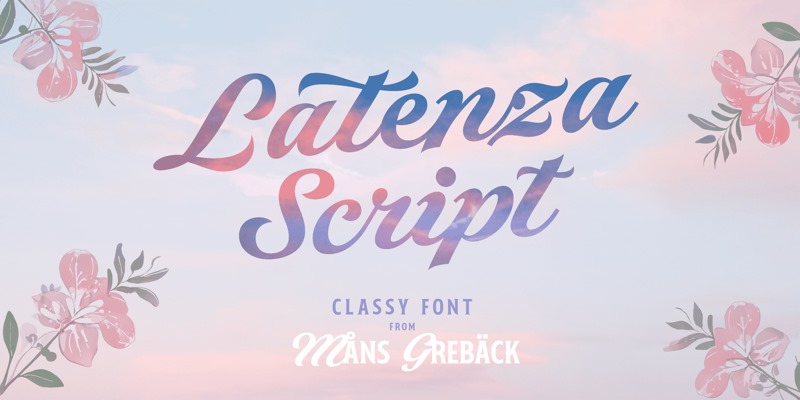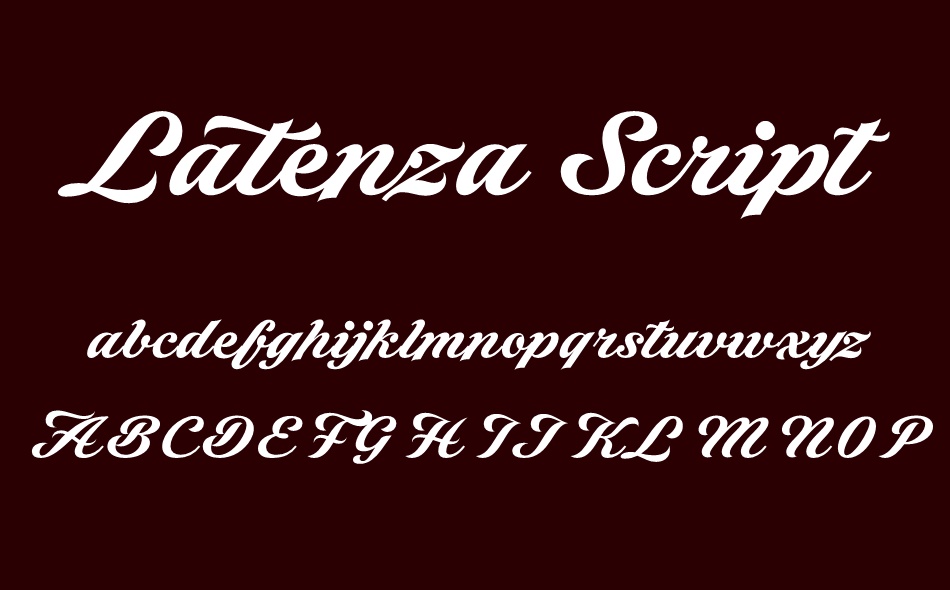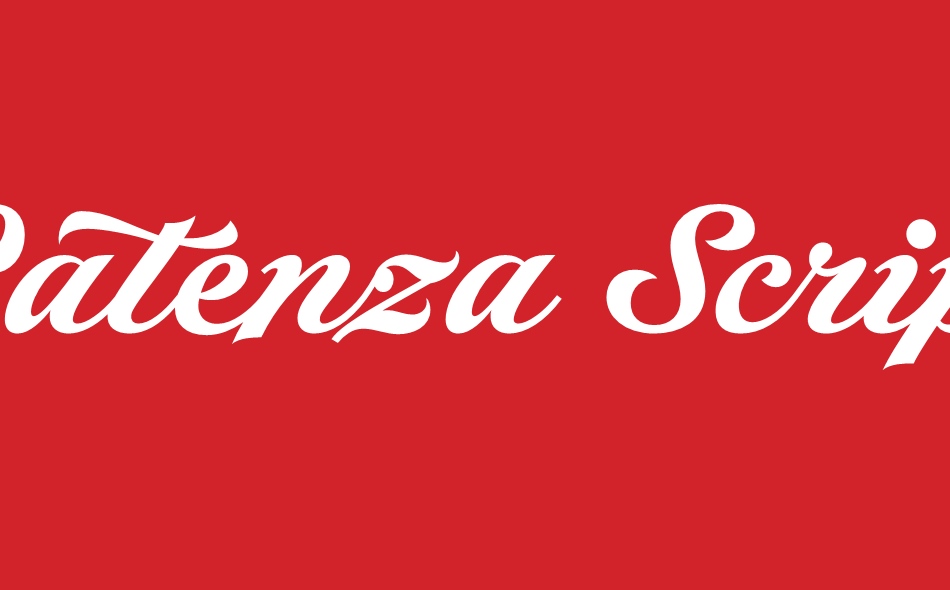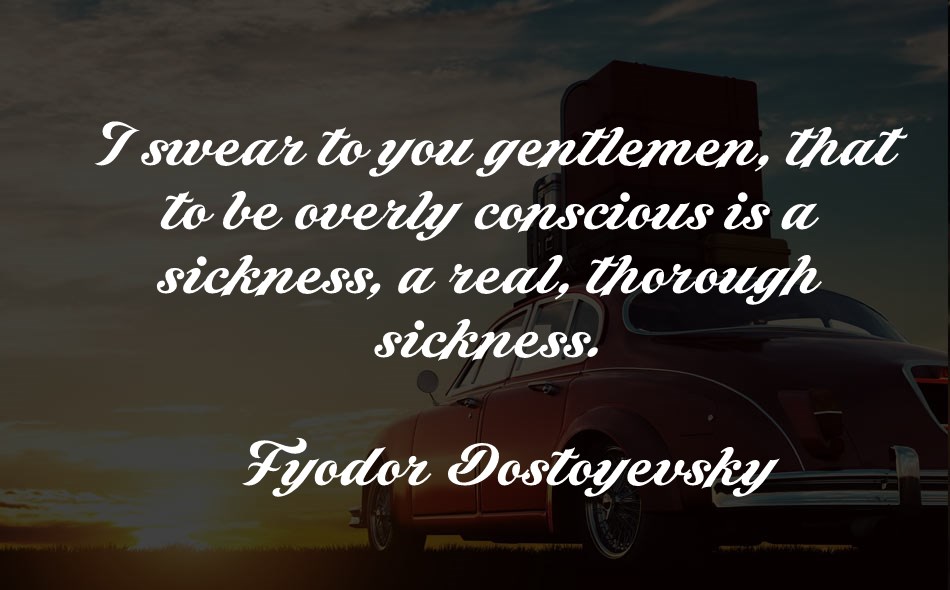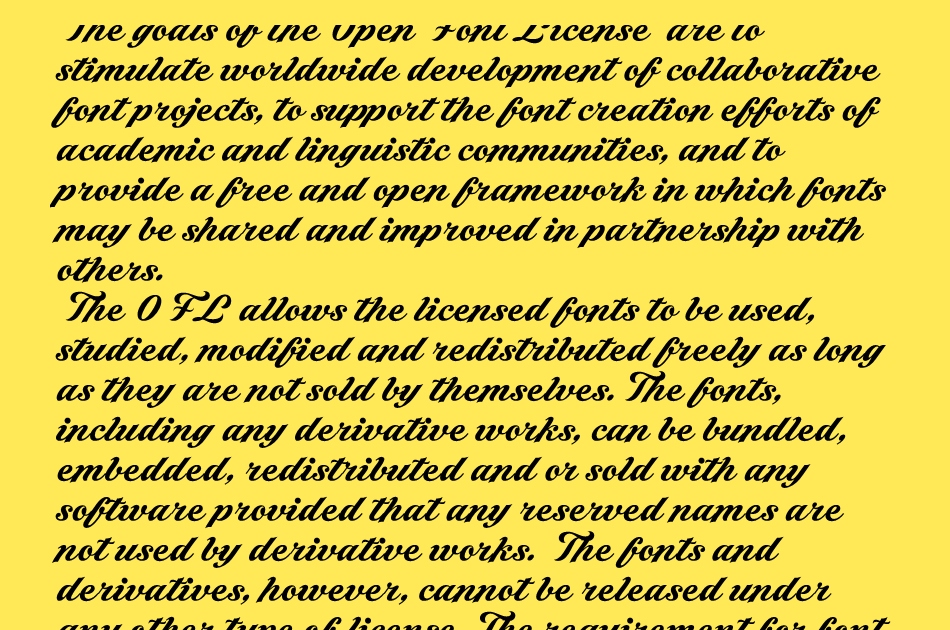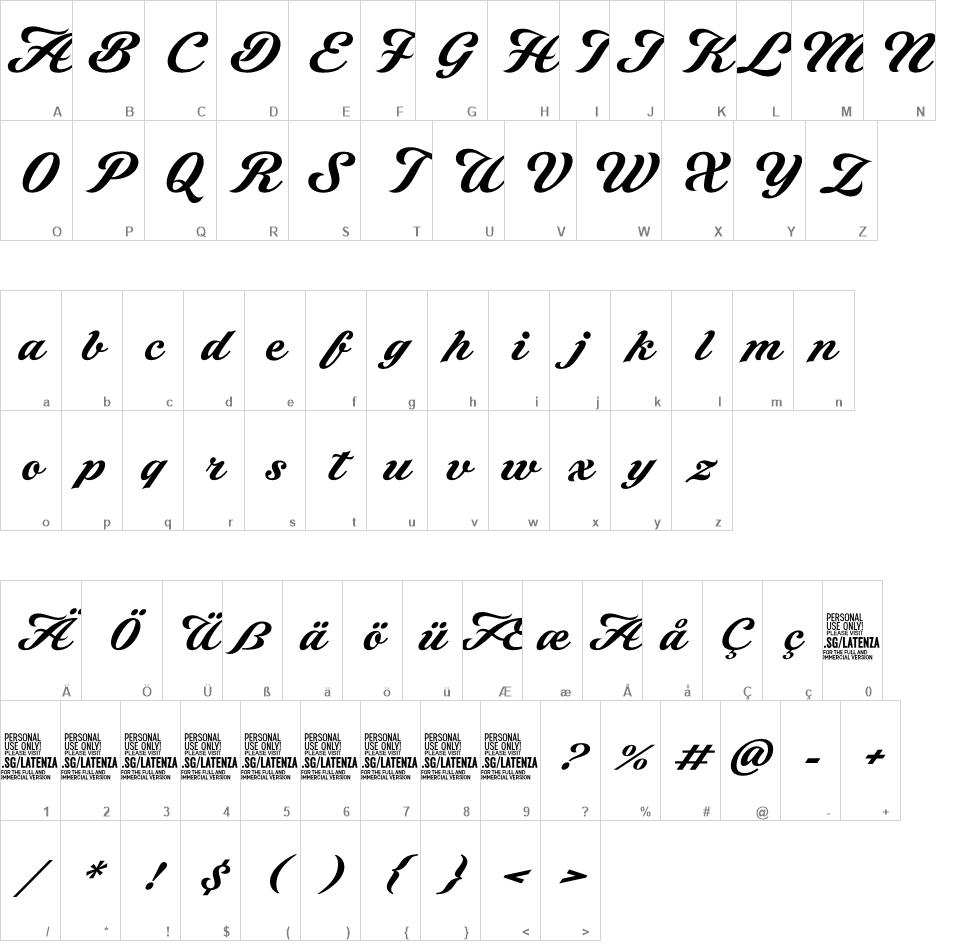
Latenza Script font
Latenza Script is a flowing calligraphic script with a soft, composed rhythm. The letters move with long strokes and gentle turns, giving the text a calm confidence rather than a loud flourish. It carries a classic feeling, but with relaxed proportions that make it feel natural and contemporary.
Latenza Script is a flowing calligraphic script with a soft, composed rhythm.
The letters move with long strokes and gentle turns, giving the text a calm confidence rather than a loud flourish. It carries a classic feeling, but with relaxed proportions that make it feel natural and contemporary. The connections are smooth and intentional, allowing words to breathe while still holding together as a unified line.
The font is built with advanced OpenType functionality and guaranteed top-notch quality, containing stylistic and contextual alternates, ligatures and more automatic and manual features; all to give you full control and customizability.
It has extensive lingual support, covering all Latin-based languages, from North Europa to South Africa, from America to South-East Asia. It contains all characters and symbols you'll ever need, including all punctuation and numbers.
Designed by Måns Grebäck, Latenza Script focuses on balance and readability within a handwritten form. The design favors clarity and elegance, letting the details support the text instead of overpowering it.